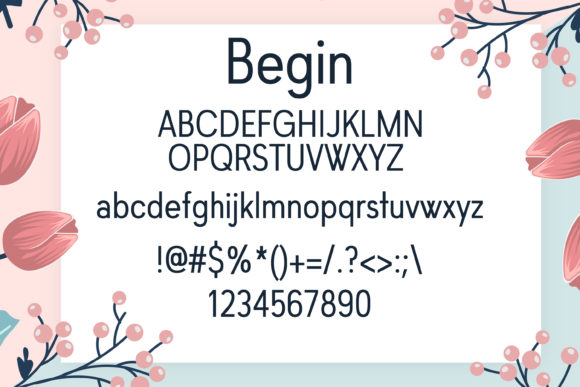
The Perfect Starting Point for Your Creative Projects
Have you ever sat down at your desk, staring at a blank canvas, wondering where to begin? Maybe it’s a poster for an upcoming event, a logo for your new business, or a social media graphic to grab attention. The moment of creation is always the most exciting part – and that’s where the right font can make all the difference.
Enter Begin Font, a simple yet elegant display font designed to elevate your creative ideas and make them stand out from the crowd. With its clean lines and neat lettering, Begin Font is the perfect addition to any project that needs a touch of sophistication and charm. Whether you’re a seasoned designer or a hobbyist, this versatile font is a valuable asset to have in your toolkit, helping you to create stunning visuals that capture the essence of your message.
Begin Font Key Features
- Font Family: Begin Font is a sans-serif font family designed for digital use.
- Unique Characteristic: Begin Font features a unique blend of modernity and readability, making it suitable for a wide range of applications, from body text to display headings.
- Font Weight: Available in 8 weights, from Light to Extra Bold, providing flexibility for designers to create visually appealing typography.
Begin Font Review
Begin Font is a beautiful, modern sans-serif font that I had the pleasure of working with. One of the things that stood out to me was its ✨ clean lines and minimalist aesthetic. The font is incredibly versatile and can be used in a wide range of applications, from corporate branding to digital products.
Another strength of Begin Font is its ✨ excellent legibility. The font is clear and easy to read, even at small sizes, making it perfect for use in interfaces, signage, and other environments where text needs to be easily readable.
However, there are some limitations to consider. One of the biggest issues I encountered was the ⚠️ limited language support. While the font includes a decent range of languages, it falls short of supporting more complex languages like Arabic or Chinese.
Another concern is the ⚠️ lack of italic and bold font weights. While the regular font weight is beautiful, the lack of italic and bold options can make it difficult to create visual hierarchy and emphasis in your designs.
Overall, I would recommend Begin Font for designers who need a clean, modern sans-serif font for their projects. While it has some limitations, its strengths far outweigh its weaknesses.
- ✨ Clean lines and minimalist aesthetic
- ✨ Excellent legibility
- ⚠️ Limited language support
- ⚠️ Lack of italic and bold font weights
Tips for Getting the Most Out of Begin Font
Begin Font is a versatile font that can be used in a variety of contexts. Here are some tips for getting the most out of it:
1. Use Begin Font for headings and titles to add a touch of sophistication to your designs.
2. Experiment with different font sizes and styles to create visual interest.
3. Pair Begin Font with other fonts to create a unique and eye-catching look.
Begin Font is a great choice for a variety of applications, including:
1. Business cards and letterheads.
2. Brochures and flyers.
3. Website headers and footers.
Alternatives to “Begin Font” for Designers
Open Sans is a clean and modern sans-serif font designed for digital use. It is suitable for body text, headings, and titles. Use Open Sans for its high legibility and neutral tone, making it a great choice for a wide range of applications, from websites to mobile apps.
Compared to Begin Font, Open Sans is more versatile and widely used, with over 80 million downloads on Google Fonts. While Begin Font is a great choice for creative and artistic projects, Open Sans is a safer bet for more commercial or formal designs.